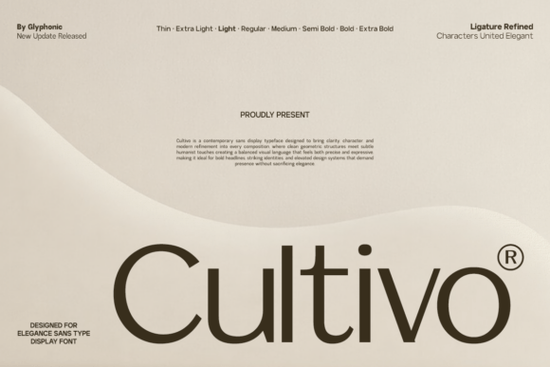
If you're looking for a clean, modern sans-serif font that works just as well in a luxury brand logo as it does in a sleek app interface, Cultivo Font deserves your attention. It’s not overly decorative, but it’s far from generic its subtle humanist curves and precise geometry give it a refined presence that feels both contemporary and timeless.
Designed with clarity and balance in mind, Cultivo avoids the cold rigidity of purely geometric fonts while maintaining enough structure to feel professional and polished. This makes it especially useful for designers who need a display typeface that doesn’t overwhelm the message but still adds visual interest through thoughtful details like elegant ligatures and consistent spacing.
Why choose Cultivo over other modern sans-serifs?
Many sans-serif fonts lean heavily into minimalism, sometimes at the cost of personality. Cultivo strikes a different balance it’s clean without being sterile, expressive without being distracting. That sweet spot is why it’s become a go-to for editorial headlines, tech branding, and even packaging where readability and sophistication matter equally.
If you’ve tried fonts like Edition or Kohilo, you’ll notice Cultivo shares their modern sensibility but brings its own rhythm and character. Unlike hand-drawn styles such as Summer Marker or playful scripts like Perfect Lemonade, Cultivo stays firmly in the realm of structured typography but with warmth.
Where does Cultivo work best?
Because of its high legibility and strong presence at larger sizes, Cultivo shines in contexts where first impressions count:
- Brand identities for startups, wellness studios, or premium product lines
- App and website headers that need to feel modern yet trustworthy
- Editorial layouts think magazine covers or feature article titles
- Merchandise and print-on-demand designs where clean typography elevates simple graphics
It’s less suited for long body text (it’s a display font, after all), but paired with a neutral serif or a simpler sans for supporting copy, it creates a compelling visual hierarchy.
How does it compare to similar fonts on Creative Fabrica?
On Creative Fabrica, you’ll find many excellent sans-serif options, each with its own flavor. For example, Edition offers a more architectural feel, while Kohilo leans into soft, rounded forms. Summer Marker and Perfect Lemonade serve entirely different moods casual, handwritten, and energetic.
Cultivo sits comfortably between technical precision and human touch. If your project needs authority without arrogance, or style without gimmicks, it’s a smart choice.
Tips for using Cultivo effectively
To get the most out of this font, keep these practical pointers in mind:
- Use generous spacing. Cultivo’s letterforms already have refined kerning, but adding a touch of tracking can enhance its airy, modern feel especially in headlines.
- Limit uppercase use. While all-caps can work for short logos or labels, mixed case often showcases Cultivo’s nuanced shapes better.
- Pair it wisely. Try combining it with a neutral, highly readable typeface like Inter, Lora, or even a minimalist sans like Helvetica Neue for body text.
- Avoid over-decoration. Let the font speak for itself. Heavy shadows, gradients, or outlines can distract from its clean lines.
For crafters and small business owners creating product labels, social media graphics, or Etsy shop banners, Cultivo adds a layer of professionalism without requiring advanced design skills. Its consistency across weights (if available) also makes it scalable for multi-platform use.
Ready to try it?
If you’re building a brand, refreshing a website, or designing premium printable art, Cultivo offers a versatile foundation that won’t date quickly. Before downloading, consider how it aligns with your overall aesthetic are you aiming for calm confidence or bold energy? Cultivo excels at the former.
Quick checklist before you commit:
- Do you need a display font (for headlines, logos, titles)?
- Is your project leaning toward modern, clean, and professional?
- Will you pair it with a simpler typeface for body text?
- Have you tested it at the actual size you’ll use it (e.g., on a mockup T-shirt or app screen)?
If you answered yes to most of these, Cultivo could be the understated standout your next project needs.